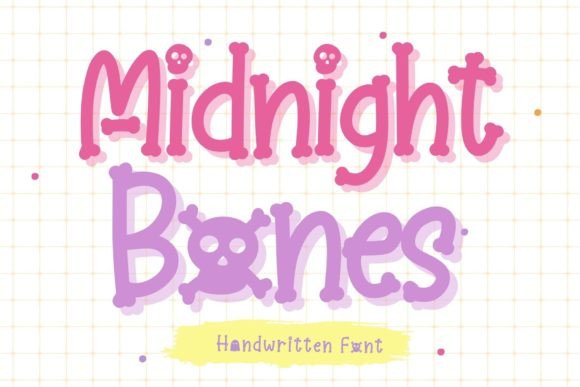
Venture into the realm of the mystical and macabre with the Midnight Bones font, a captivating creation by Brown Cupple Fonts. Specially tailored to unleash the charm of the Russian language, Midnight Bones beckons you to embrace the spirit of Halloween with its playful and authentic allure. Step into a world where imagination reigns supreme, where every stroke of the pen weaves a tale of enchantment and delight.
Transport yourself to a realm where the ordinary becomes extraordinary, where words dance with whimsicality and grace. Midnight Bones is not merely a font; it's a conduit to express your creativity, to bring your wildest dreams to life. Whether you're crafting blog posts that captivate, designing logos that leave an everlasting impression, or creating branding that exudes personality, Midnight Bones is your steadfast companion.
Let your designs transcend the mundane and blossom into works of art, as Midnight Bones transforms invitations into portals to enchanted worlds, greeting cards into heartfelt expressions of joy, and planners into chronicles of magical adventures. Embark on a design odyssey where photo albums become cherished keepsakes, decorations burst with otherworldly charm, and every project you touch radiates with individuality and flair.
With Midnight Bones, you're not just downloading a font; you're acquiring a gateway to a realm of boundless creativity, a font that ignites your imagination and sets your designs ablaze with captivating allure. Unleash the magic that lies within your creative depths and let Midnight Bones guide you on an artistic journey where the ordinary gives way to the extraordinary. Embrace the enchanting aura of Midnight Bones, and watch your designs blossom into masterpieces that leave an indelible mark on the world.